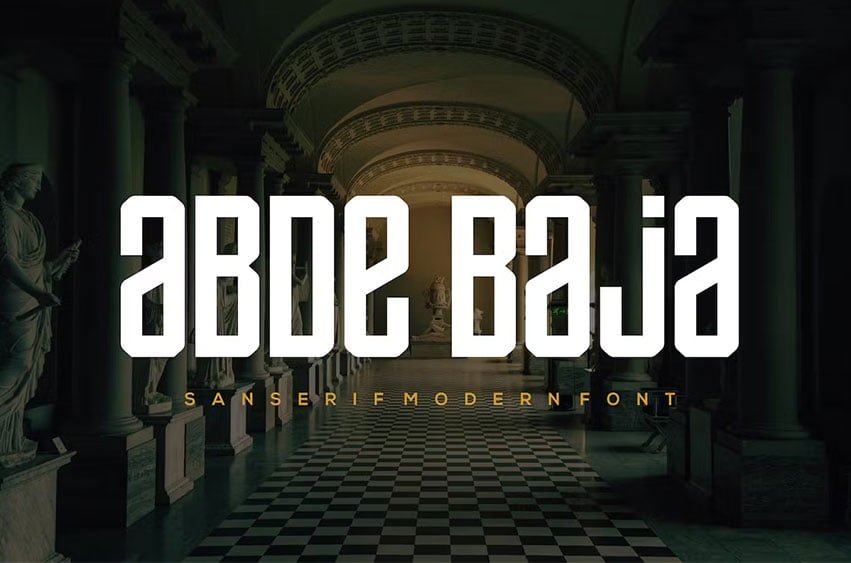
AbdeBaja Font Modern Font is a bold and authentic display font. The font is suitable for any branding project like logo, sport, and many more. outstanding in a wide range of contexts.